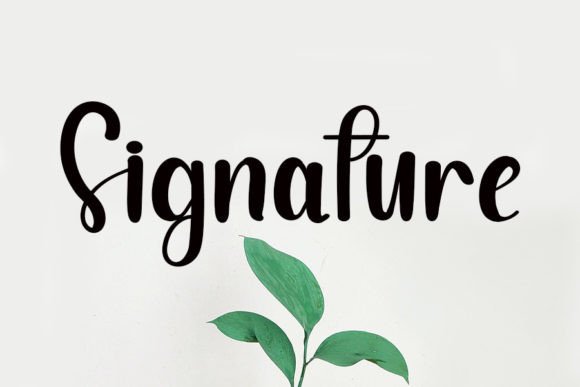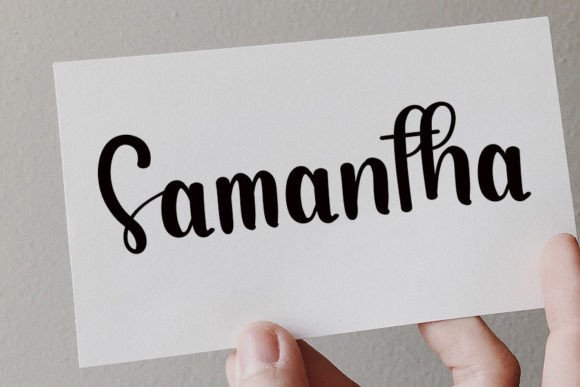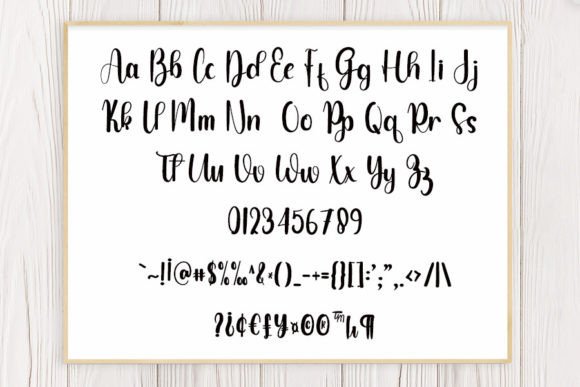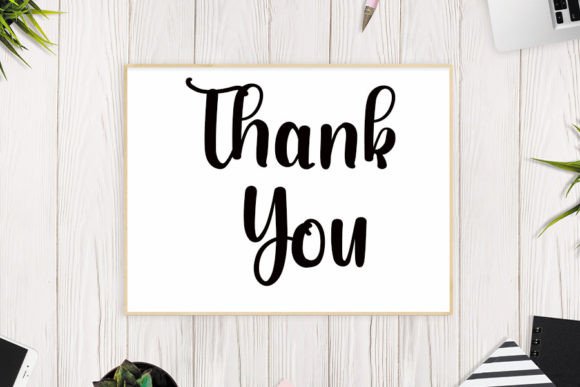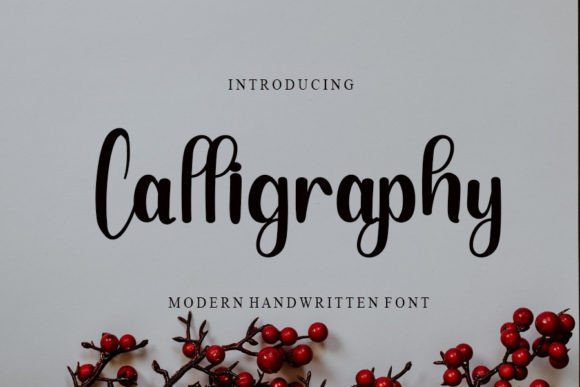
Introducing Calligraphy Font: Elevate Your Designs with Elegance and Modernity
Calligraphy is a beautiful and timeless art form that has been a cornerstone of elegant writing for centuries. In the digital age, calligraphy fonts have become a popular choice for designers and crafters looking to add a touch of sophistication and personality to their projects. One such font that has caught the attention of many is the Calligraphy Font, a cool handwritten font with a modern vibe and spotless form, inspired by classic calligraphy.
What Makes Calligraphy Font Special?
Not too thin and not too thick, the Calligraphy Font strikes a perfect balance between elegance and readability. Its balanced and varied strokes make it an ideal choice for a wide range of design projects, from wedding invitations and greeting cards to branding and advertising materials. The font’s modern vibe ensures that your designs look fresh and contemporary, while its classic inspiration adds a touch of timelessness.
Key Features of Calligraphy Font
- Balanced and Varied Strokes: The Calligraphy Font features strokes that are carefully crafted to be neither too thin nor too thick, ensuring a beautiful balance and variation that adds visual interest to your designs.
- Modern Vibe: With its clean lines and contemporary feel, the Calligraphy Font is perfect for designers looking to create modern and stylish designs.
- Spotless Form: The font’s spotless form ensures that your designs look crisp and professional, making it ideal for use in a variety of applications.
- Inspired by Classic Calligraphy: The Calligraphy Font draws inspiration from traditional calligraphy, adding a touch of elegance and sophistication to your designs.
Uses of Calligraphy Font
The Calligraphy Font is versatile and can be used in a variety of design projects, including:
- Wedding Invitations and Stationery: Add a touch of elegance and romance to your wedding invitations, save-the-date cards, and other stationery with the Calligraphy Font.
- Greeting Cards and Gift Tags: Create beautiful and personalized greeting cards and gift tags with the Calligraphy Font.
- Branding and Advertising: Use the Calligraphy Font to add a touch of sophistication and style to your branding and advertising materials.
- Digital Art and Illustration: The Calligraphy Font is also perfect for digital artists and illustrators looking to add a touch of elegance and personality to their work.
The Calligraphy Font is a beautiful and versatile font that is perfect for designers and crafters looking to add a touch of elegance and modernity to their projects. With its balanced and varied strokes, modern vibe, and classic inspiration, this font is sure to enhance the beauty of your designs. Whether you’re creating wedding invitations, greeting cards, or branding materials, the Calligraphy Font is a great choice.